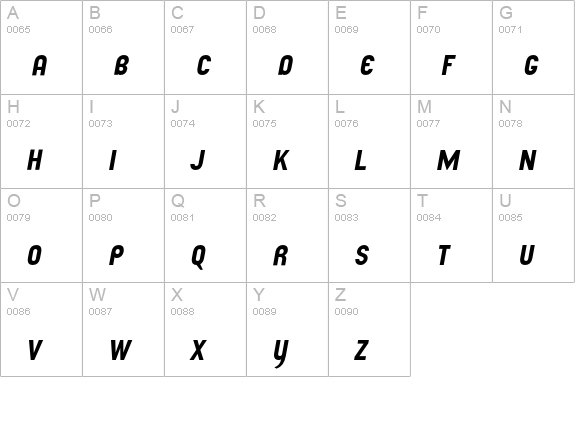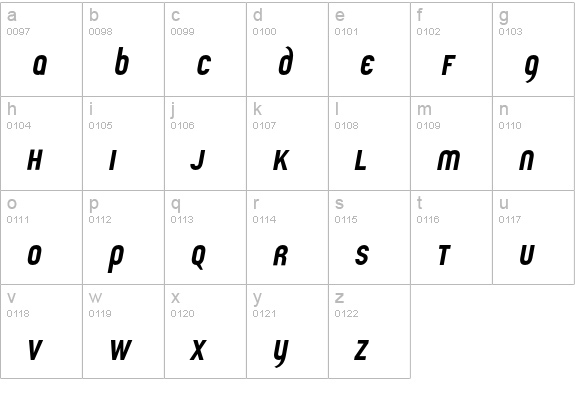
UdoLeaned Font Details
UdoLeaned font is a stunning display typeface that effortlessly combines elegance with a touch of uniqueness. Its sleek and modern design is perfect for adding a sophisticated touch to any project, whether it's a logo, branding, or headline. With its clean lines and balanced proportions, UdoLeaned font has a timeless appeal that is sure to captivate your audience. This font features a variety of letterforms that are both bold and refined, creating a harmonious balance between strength and delicacy. The sharp edges and subtle curves of UdoLeaned font give it a contemporary and edgy vibe, making it ideal for projects that require a modern and trendy aesthetic. One of the best things about UdoLeaned font is that it is completely free! Yes, you heard it right. You can freely download this font and use it in your personal and commercial projects without any restrictions. This means that you can bring your creative ideas to life without worrying about breaking the bank. To get your hands on this amazing font, simply head over to FontsMarket.com. There, you will find UdoLeaned font available for download along with a wide range of other high-quality fonts. FontsMarket.com offers a user-friendly platform where you can easily explore and discover the perfect font for your project. So why wait? Take advantage of this wonderful opportunity and download UdoLeaned font today. Elevate your designs with its elegance and modernity, and let your creativity shine. With UdoLeaned font, the possibilities are endless, and the best part is, it won't cost you a dime.